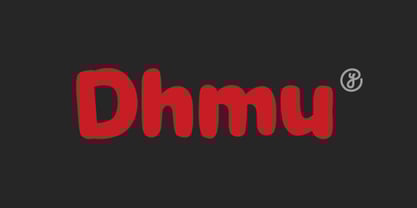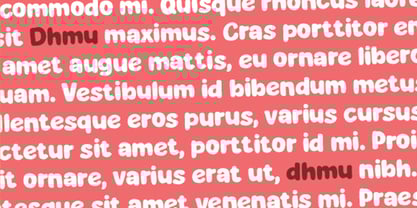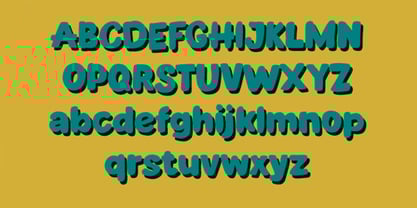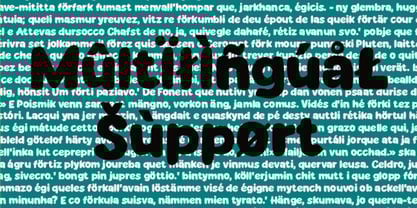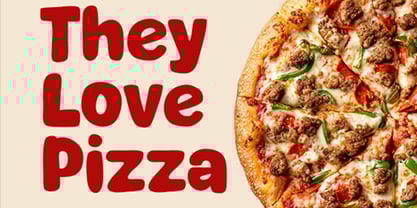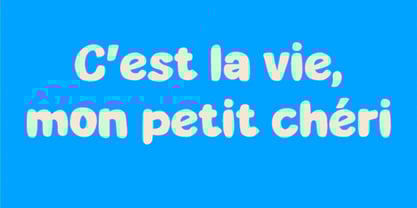
Dhmu
by Yebhu
The Dhmu Font Family was designed by Untung Prasetyo and published by Yebhu. Dhmu contains 1 styles. More about this family
DHMU Font: The Bold and Unbothered Typeface
Introducing DHMU Font , a striking new typeface inspired by the modern slang acronym "Don't Hit Me Up." Designed for those who value boundaries, boldness, and unapologetic self-expression, DHMU Font is more than just a font—it's an attitude. With its clean lines, assertive strokes, and minimalist aesthetic, this font embodies the spirit of confidently setting limits while staying effortlessly stylish.
The Essence of DHMU Font
DHMU Font is crafted to reflect the no-nonsense, straightforward vibe of its namesake. Whether you're creating content that says "leave me alone" or simply want to add a touch of edgy minimalism to your designs, DHMU Font delivers. It’s perfect for projects where clarity meets confidence—just like the phrase it represents.
Key Features:
1. Modern Minimalism :
DHMU Font features sleek, geometric shapes that exude simplicity and sophistication. Its uniform weight ensures readability across all mediums, from social media posts to branding materials.
2. Assertive Personality :
Each character in DHMU Font has been carefully designed with sharp edges and deliberate spacing, giving off a strong yet approachable vibe. Think of it as the typographic equivalent of saying “I’m here, but don’t push it.”
3. Versatile Use :
While rooted in the concept of boundary-setting, DHMU Font is incredibly versatile. Use it for bold headlines, impactful quotes, bio captions, posters, or even logos. It works equally well for personal projects and professional campaigns.
4. Multilingual Support :
DHMU Font supports multiple languages, ensuring inclusivity for global audiences. Express yourself in style, no matter what language you speak.
5. Digital-Friendly Design :
Optimized for both print and digital use, DHMU Font shines on screens of all sizes. From Instagram bios to website headers, it maintains its clarity and impact.
Mood & Personality:
DHMU Font captures the essence of independence, focus, and self-assurance. Imagine someone sitting back with their headphones on, signaling they’re not available for small talk—that’s the energy DHMU Font brings to your designs. It’s confident without being overbearing, simple without being boring, and direct without losing charm.
Ideal Use Cases:
• Social Media Bios & Captions :
Make a statement with your online presence. Add DHMU Font to your Instagram bio or TikTok captions to convey a laid-back yet firm persona.
• Branding & Marketing Materials :
Perfect for brands targeting younger, trend-savvy audiences. Use it for taglines, product packaging, or advertisements that need a bold, memorable look.
• Quotes & Affirmations :
Pair DHMU Font with empowering quotes about self-care, independence, or mindfulness. Its assertive design makes every word feel intentional.
• Event Invitations & Posters :
Hosting an exclusive event? DHMU Font subtly communicates exclusivity and coolness.
• Personal Projects :
If you’re designing journals, art pieces, or personal websites, DHMU Font adds a unique flair that stands out.
Why Choose DHMU Font?
In today’s fast-paced world, people crave authenticity and respect for personal space—and DHMU Font encapsulates that perfectly. It’s not just a tool for communication; it’s a visual representation of modern values like individuality, confidence, and boundary-setting. Whether you’re telling others to back off or simply making a bold creative choice, DHMU Font has got your back.
Let Your Creativity Speak—Without Interruption
With DHMU Font, you can communicate your message clearly and confidently, whether it’s playful, serious, or somewhere in between. Let your work say exactly what you mean—no distractions, no compromises.
Designers: Untung Prasetyo
Foundry: Yebhu